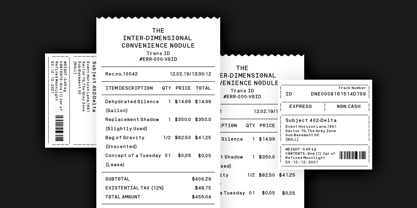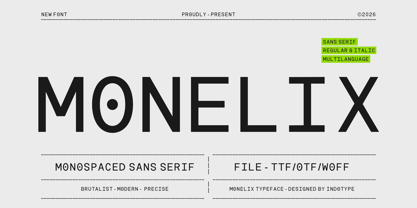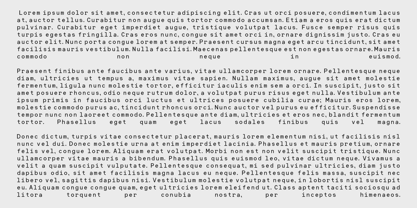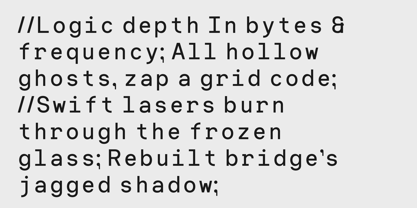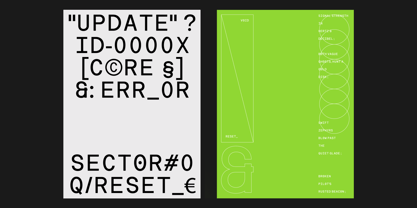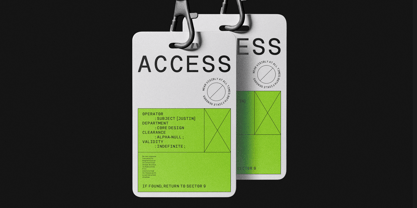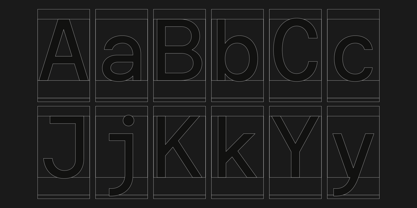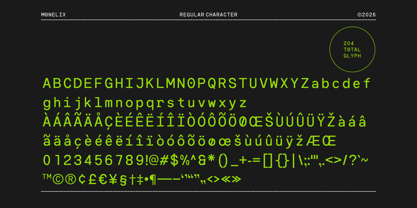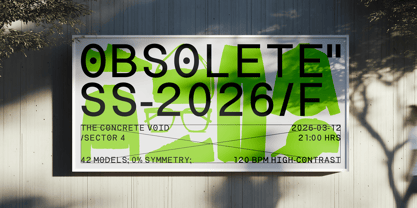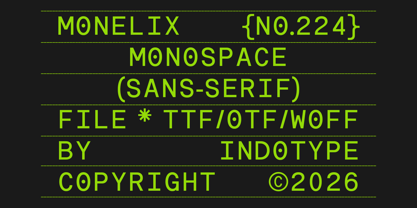
IT Monelix
by Indotype
The IT Monelix Font Family was designed by Dede Kurniawan and published by Indotype. IT Monelix contains 2 styles and family package options. More about this family
Monelix is a striking monospaced sans-serif typeface that embodies the raw, uncompromising spirit of brutalist design while maintaining meticulous precision and modern functionality. Each character occupies the exact same width, creating a rigid, structured rhythm that feels both mechanical and intentional. Its clean, no-nonsense letterforms strip away ornamentation to reveal pure, functional geometry—making every character a building block in a larger, systematic whole. Available in both Regular and Italic styles with full multilingual support, Monelix delivers versatility across multiple formats. It's the perfect choice for coding interfaces, tech branding, editorial design with a structural edge, and any project that values clarity, order, and an honest, unadorned aesthetic. Monelix doesn't just display text—it displays structure. • Ideal for: Coding & Developer Tools, Tech Branding & Startups, Editorial Layouts with Grid Systems, Terminal & Interface Design, Architectural Documentation, Brutalist-Inspired Posters. • Classification: Sans-Serif, Monospaced, Brutalist, Geometric. • Attributes: Precise, Structured, Raw, Functional, Modern, Honest, Mechanical.